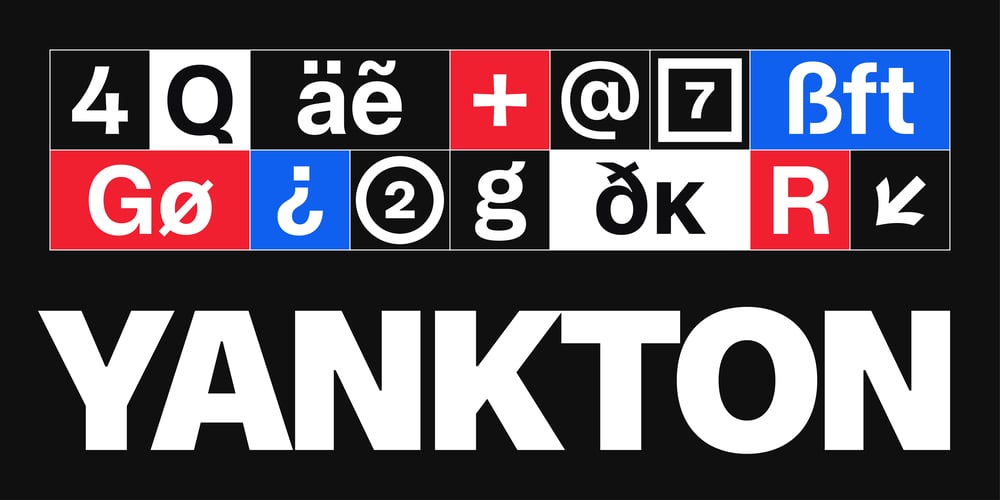
Yankton Font Family was designed by Ruls Do Paolo and published by Punchform. Yankton contains 18 styles and family package options. Yankton is a meticulously crafted sans-serif family designed to deliver impact and clarity across a wide range of visual projects. With its clean, modern aesthetic and strong geometric foundation, Yankton balances precision with versatility, making it an ideal choice for both digital interfaces and high-end print applications.Featuring nine weights ranging from an airy Thin to a commanding Black, each paired with italics, Yankton’s comprehensive style range is perfect for building visual hierarchies or expressing subtle tonal shifts in your designs.The Yankton family includes 833 glyphs per style and supports 306 Latin-based languages, providing comprehensive multilingual coverage. Extensive OpenType features, including Stylistic Alternates, Tabular and Proportional Figures, Fractions, Case-Sensitive Forms, Localized Forms, and more, empower designers to fine-tune every typographic detail.Inspired by Swiss typographic principles, Yankton’s robust structure and dynamic presence make it particularly suited for professional branding, editorial headlines, corporate reports, and UI/UX designs. Its minimalist design ethos translates beautifully into both bold, impactful headlines and refined, legible body text, ensuring consistent performance from the smallest footnotes to the largest billboard campaigns.Whether you’re designing a global brand identity, crafting sophisticated editorial layouts, or developing seamless digital interfaces, Yankton brings precision and refinement to every typographic choice. This powerhouse typeface is ready to elevate your design projects with its timeless appeal and comprehensive feature set.